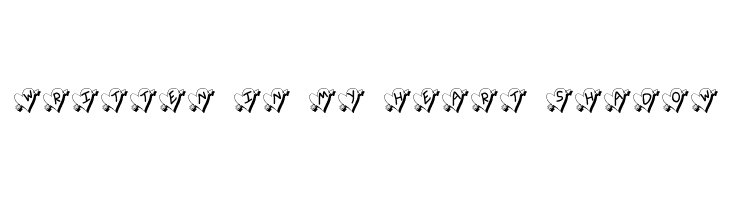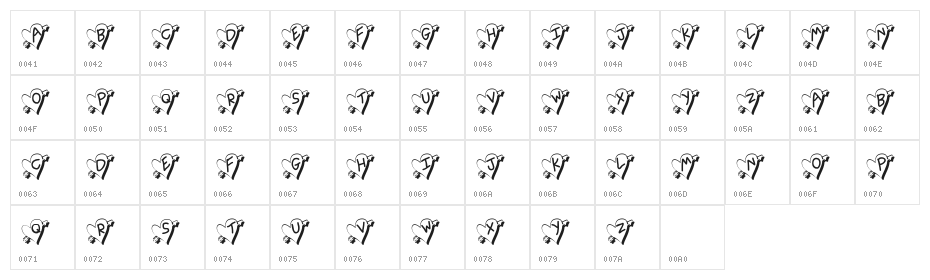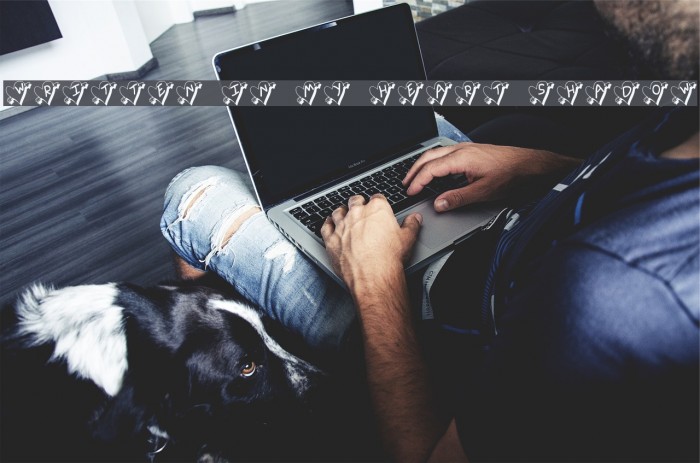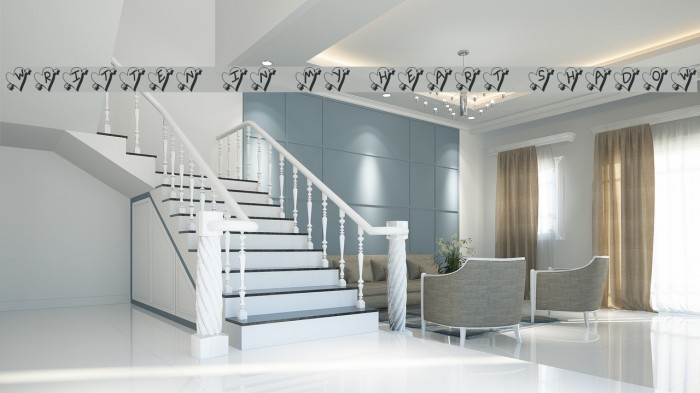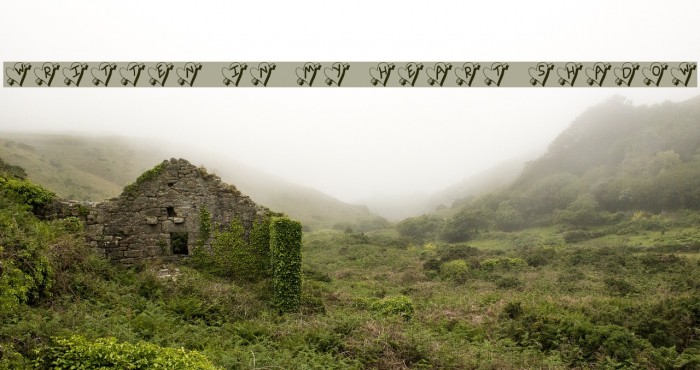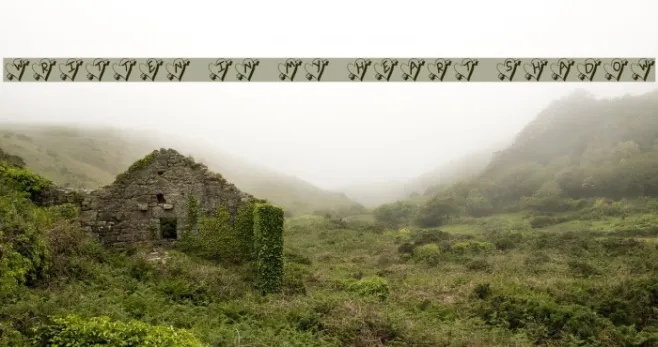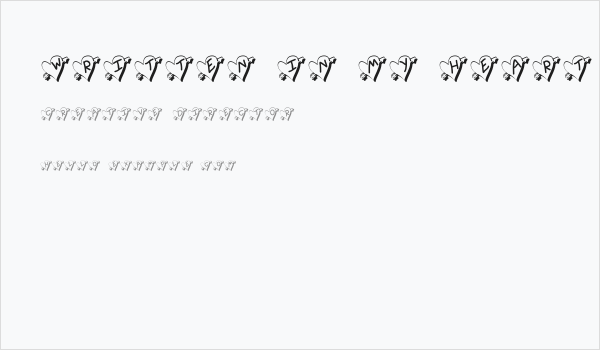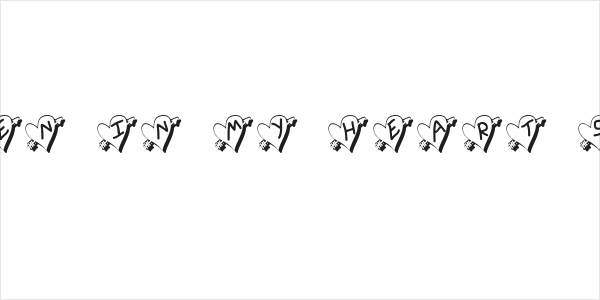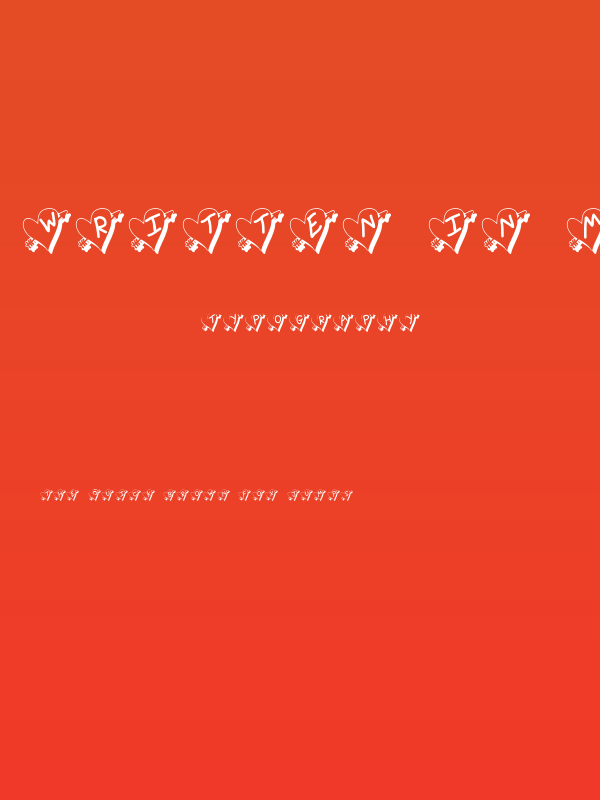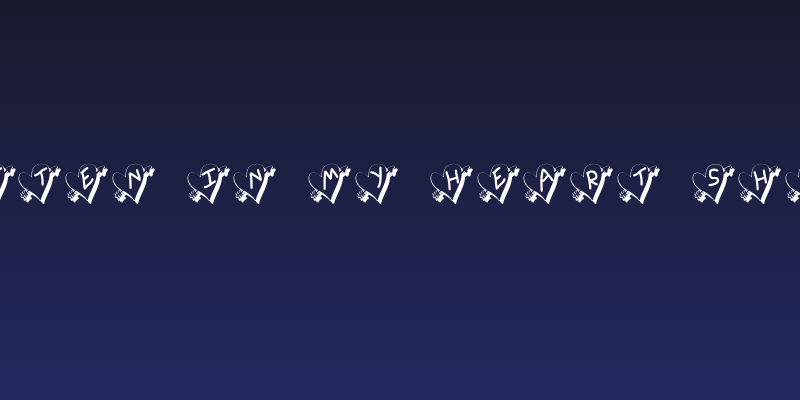
This playful and decorative font features each character enclosed within a heart shape, with an arrow piercing through, adding a whimsical and romantic touch. The letters are bold and slightly rounded, providing a friendly and approachable feel. The shadow effect gives the font a three-dimensional appearance, enhancing its visual impact. This font is ideal for projects that require a fun and loving theme, such as Valentine's Day cards, wedding invitations, or any design that aims to convey affection and warmth.
| Proposed Projects | Perfect for Valentine's Day cards, wedding invitations, love-themed posters, and playful branding projects. |